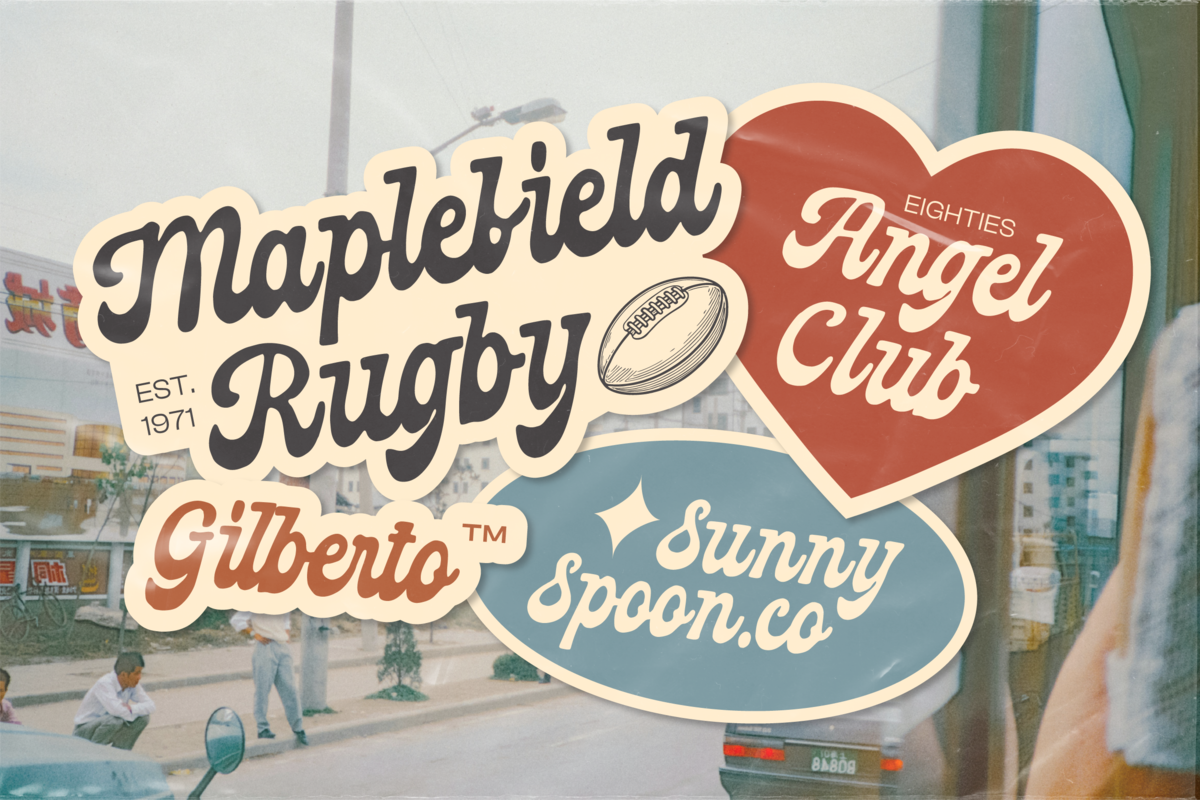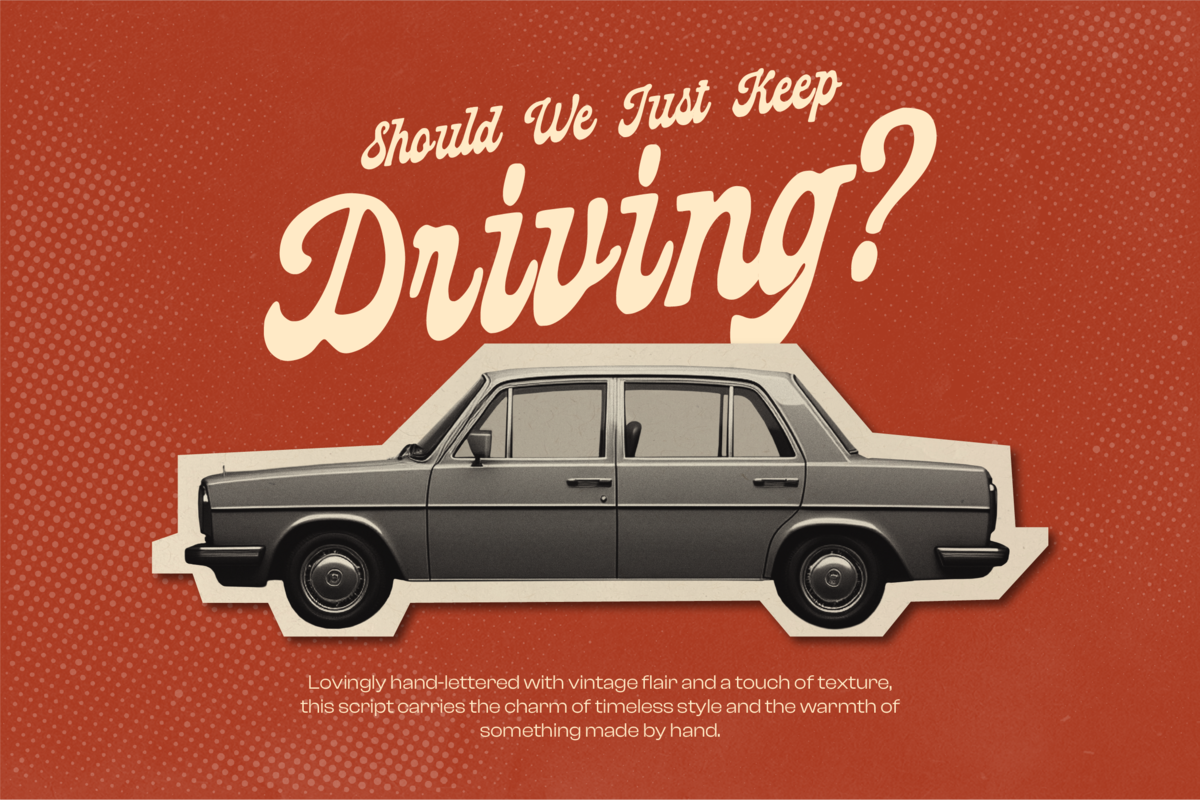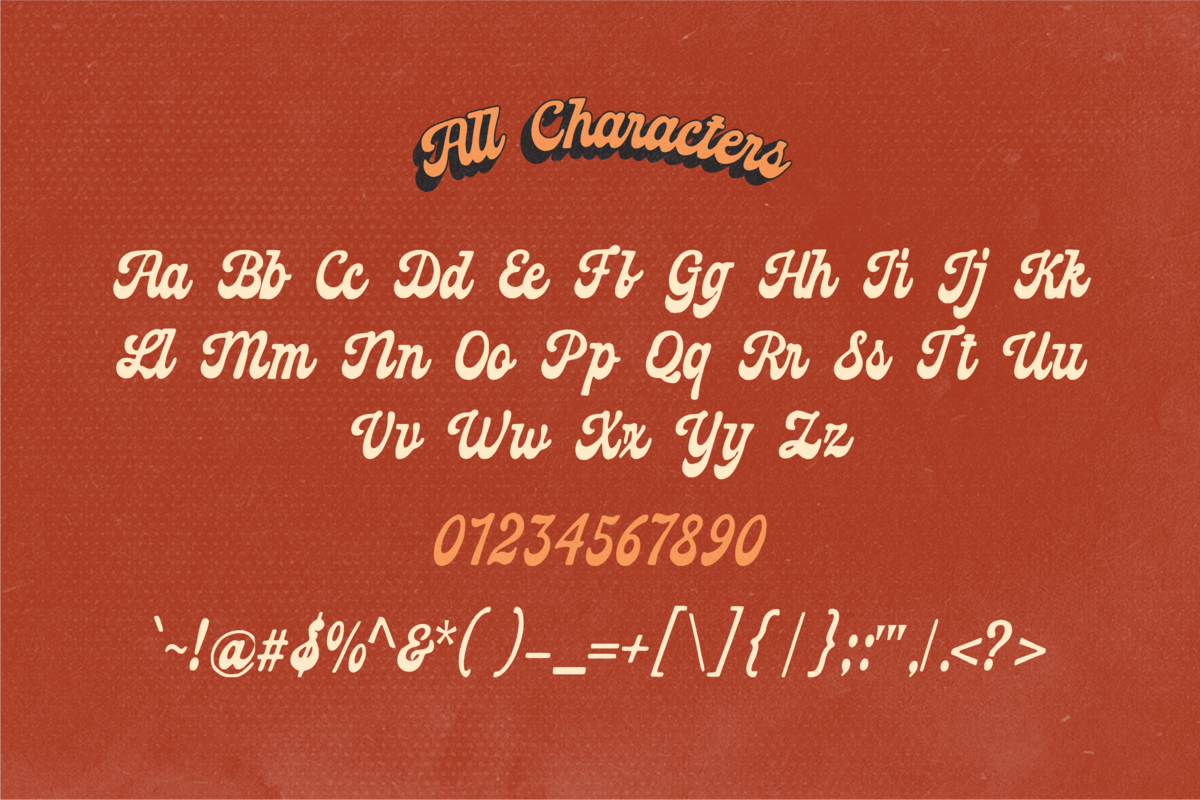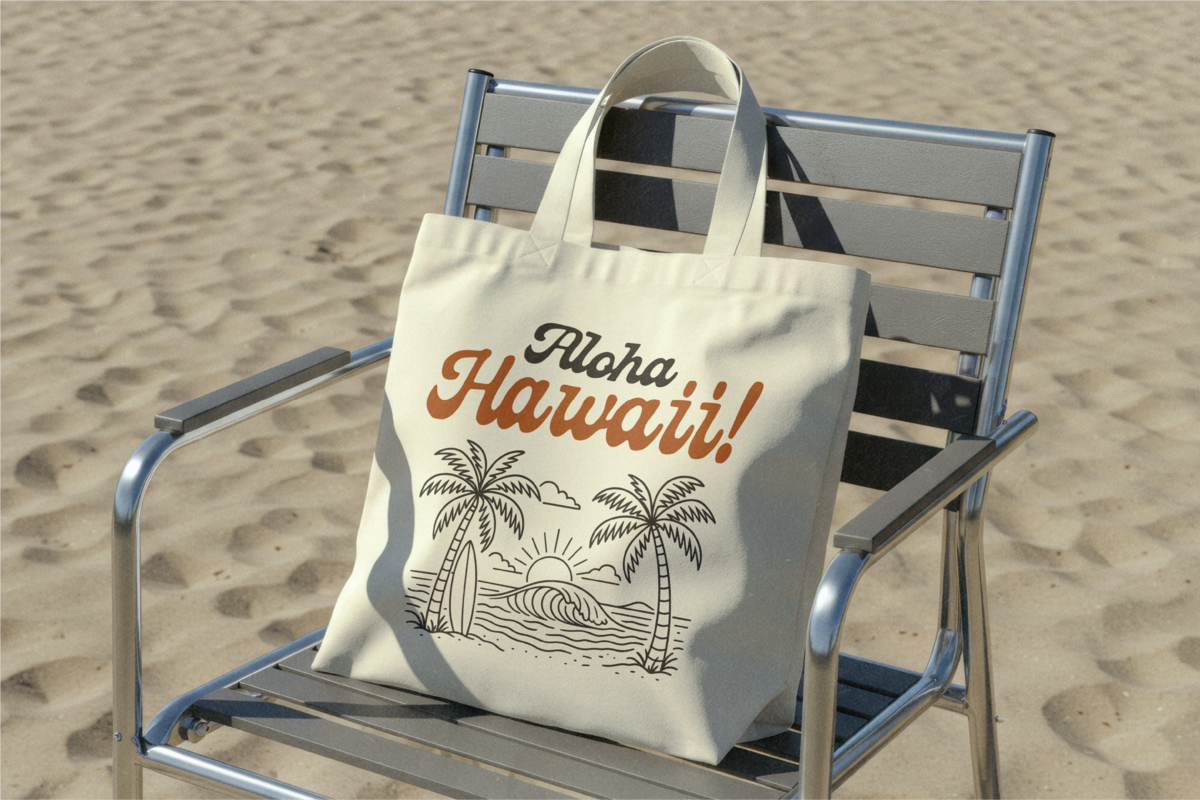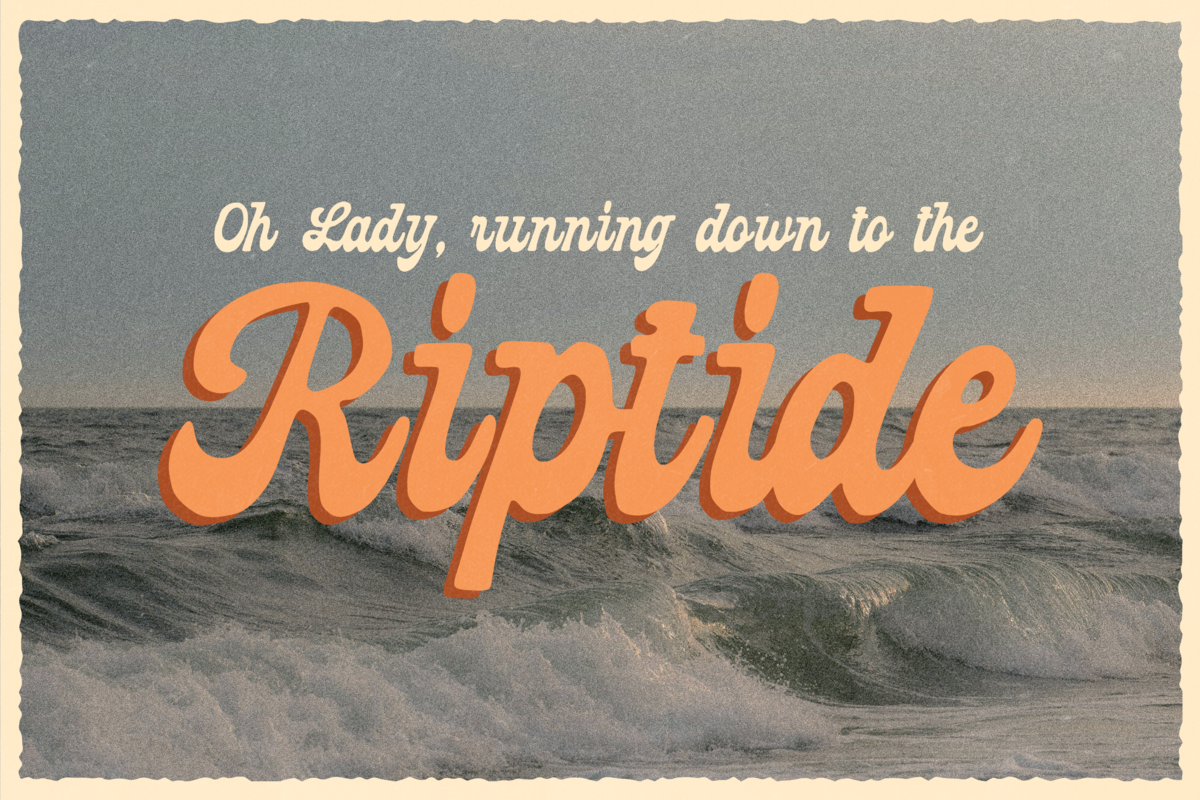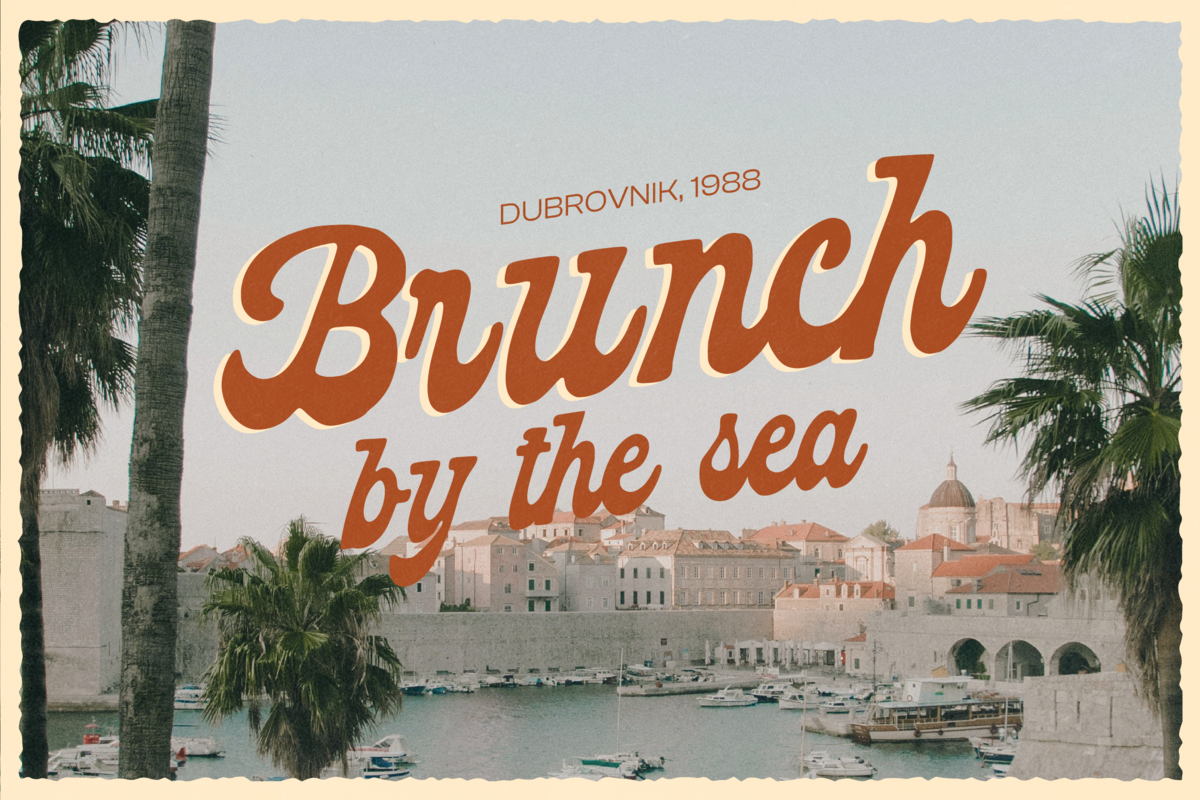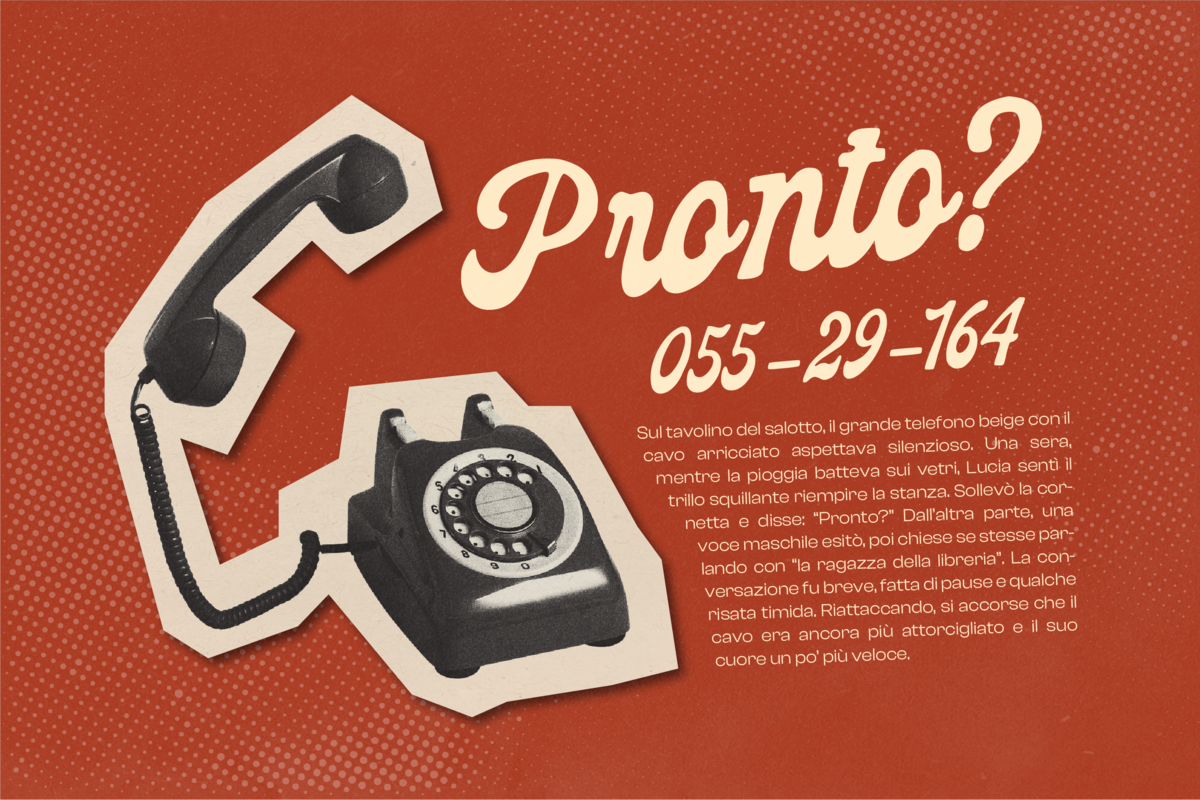
Realro - Handmade 60s Retro
Realro is a retro script font inspired by the free-spirited aesthetic of the 1960s. With its handmade letterforms and vintage curves, Realro brings a nostalgic yet lively personality to your designs. Perfect for posters, apparel, café branding, packaging, and retro-inspired logos, this font channels the playful and bold spirit of the swinging sixties.
Although it comes in a single Regular style, Realro offers strong visual impact and versatility. Featuring uppercase and lowercase letters, numerals, punctuation, and multilingual support, it is well-suited for global creatives who want to capture that authentic handmade retro feel.